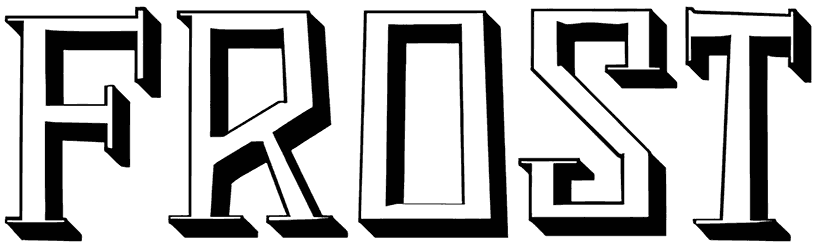
Frost Font
Are you searching for a classic face to draw for your upcoming project? Frost as an outline font will correctly make an old style and a bit 3D mood for your texts. Without lowercase support, Frost, as a retro font, can be an eye-catching item for many designs, such as web designs, posters, wordmarks, and other kinds of stuff.